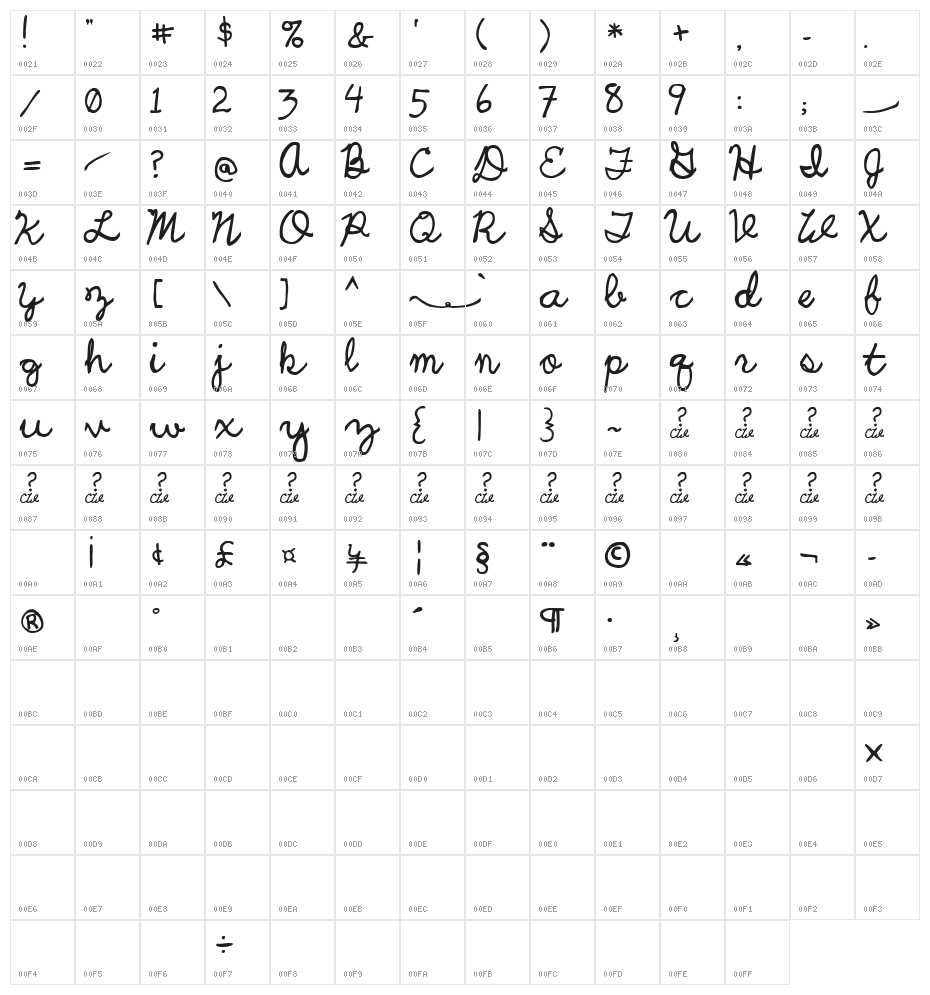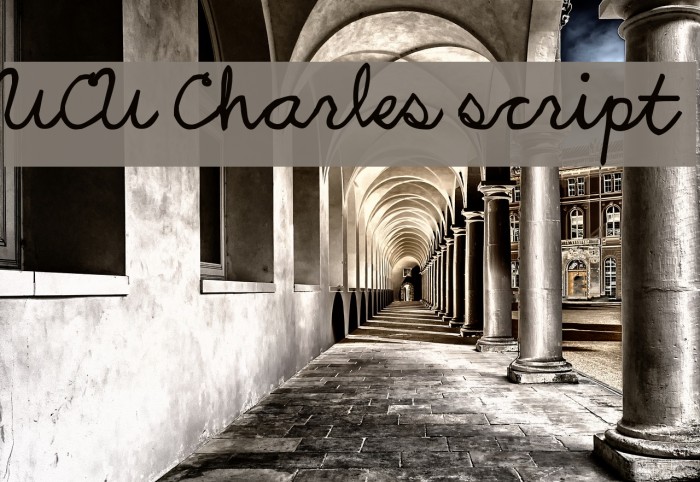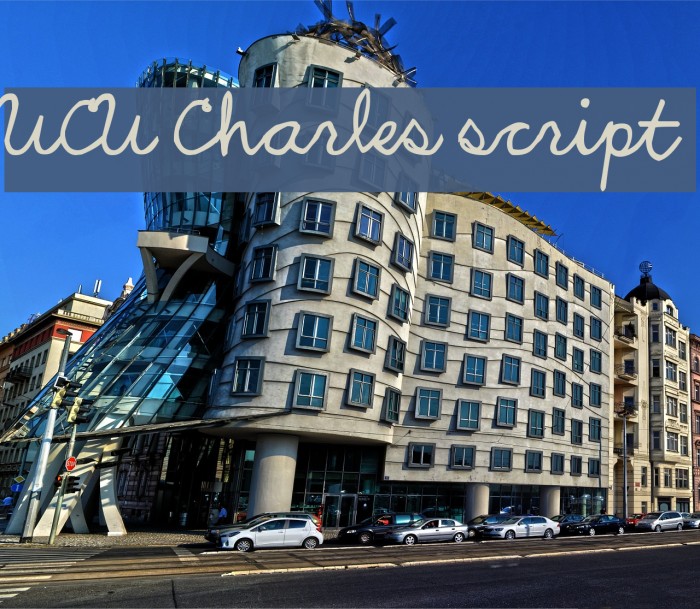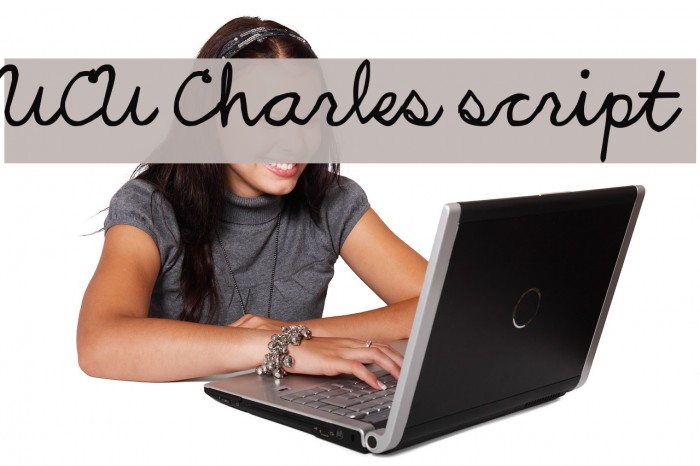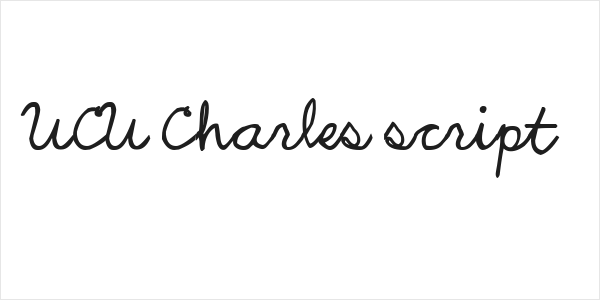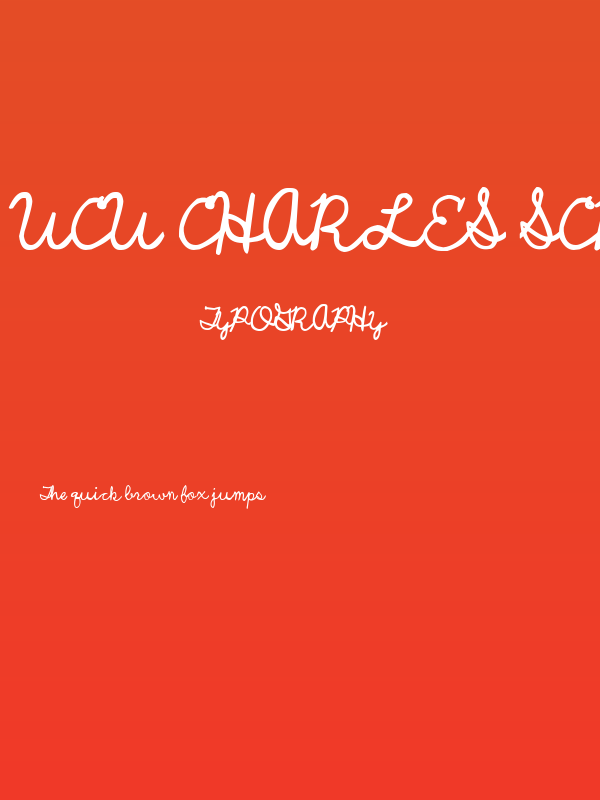
UCU Charles script Font
UCU Charles script Description
This font exudes a casual and friendly vibe with its flowing, cursive style. The letters are interconnected, creating a seamless and continuous look that mimics natural handwriting. The uppercase letters are bold and slightly larger, providing a nice contrast to the more delicate lowercase letters. Numbers and special characters maintain the same fluidity, ensuring consistency across all elements. The strokes are smooth and rounded, giving the font a soft and approachable appearance. This script font is perfect for adding a personal touch to any design, making it ideal for invitations, greeting cards, and other creative projects.
| Proposed Projects | Ideal for invitations, greeting cards, personal branding, and creative projects. |